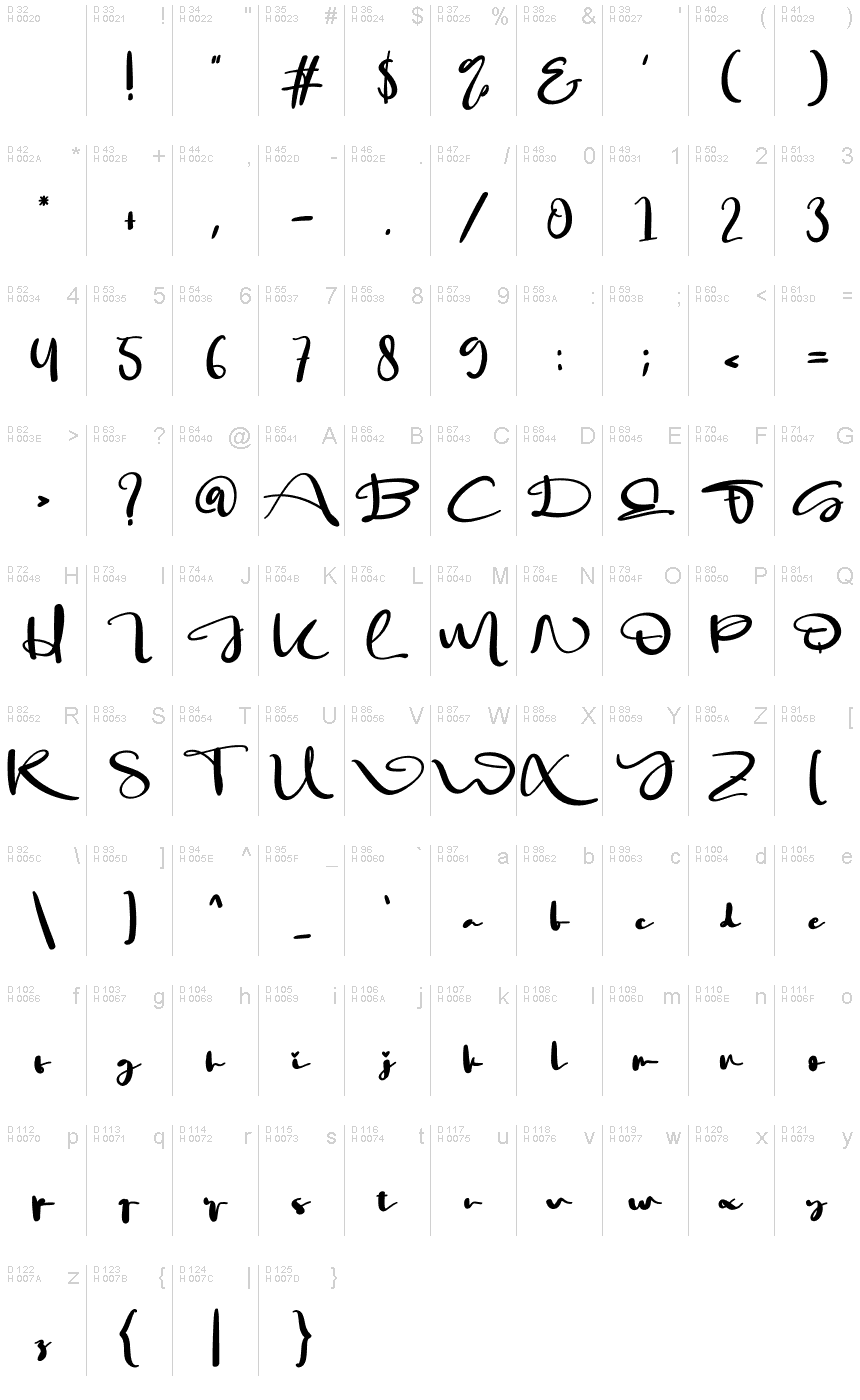
Happy Darling
Happy Darling is a charming and playful handwritten font designed by Scratchones. With its semi-expanded width, this font exudes an air of casual elegance perfect for various creative projects.
Its feminine touch makes it ideal for designing greeting cards, invitations, and wedding stationery. The Happy Darling font adds a whimsical flair to children's book illustrations and logo designs for boutique brands. Its versatility extends to social media graphics, blog headers, and even personalized gifts like mugs or t-shirts.
Let your imagination run wild with Happy Darling, the epitome of delightful femininity in typography.